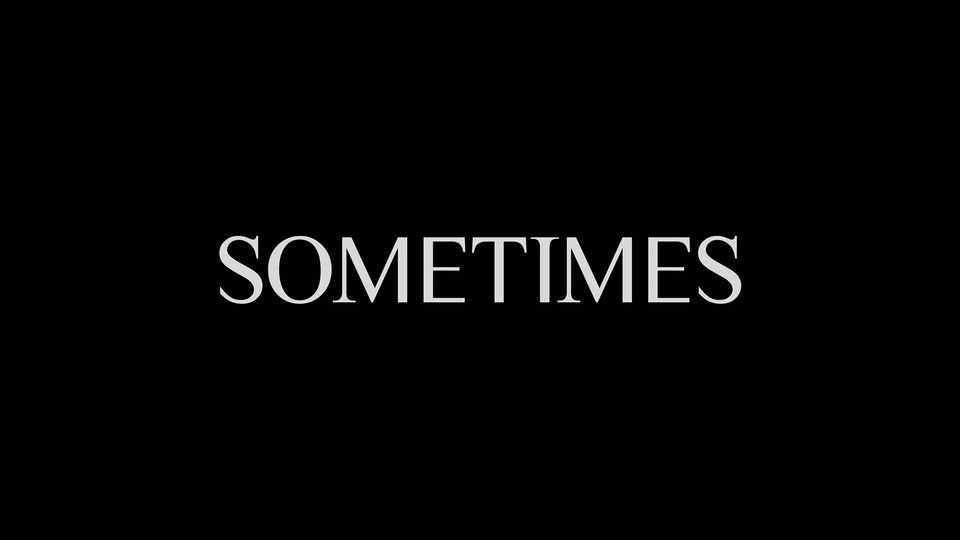
Sometimes Font › Fontesk – Download Grátis
Download Sometimes font, a display typeface based on the Times New Roman by Monotype. Sometimes was created by cutting some serifs off form the TNR and has classical and modern look at the same time.
Designer: Balázs Szemmelroth